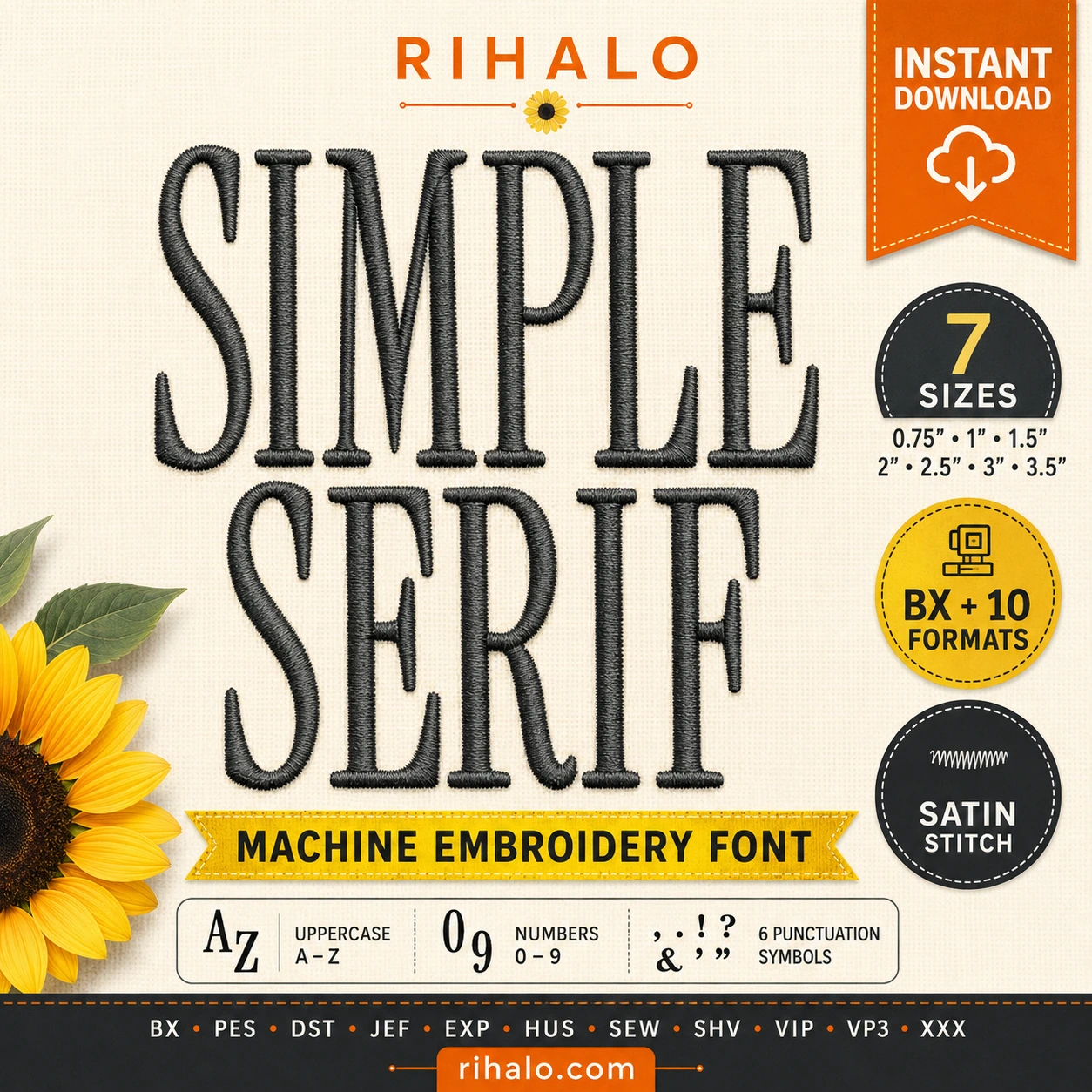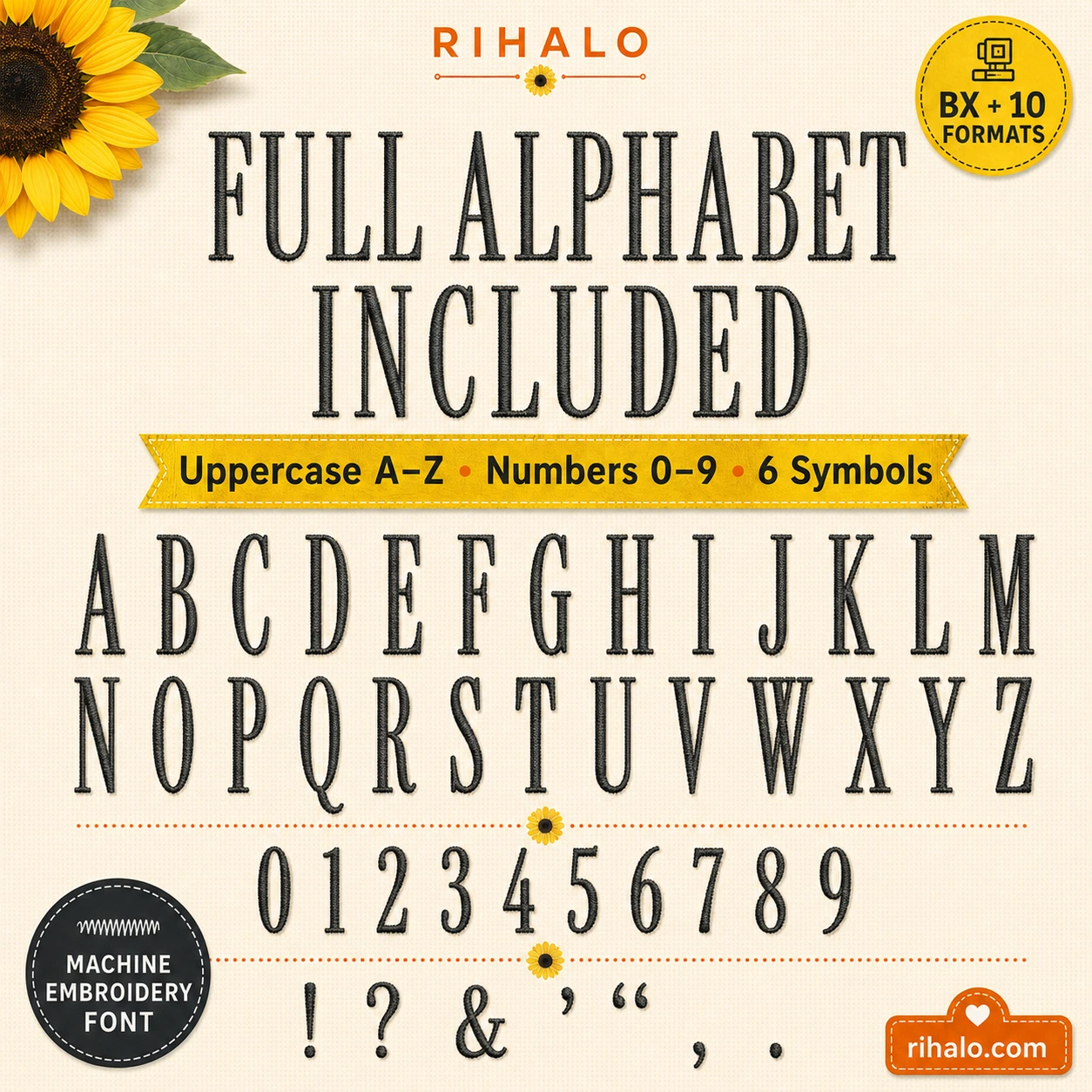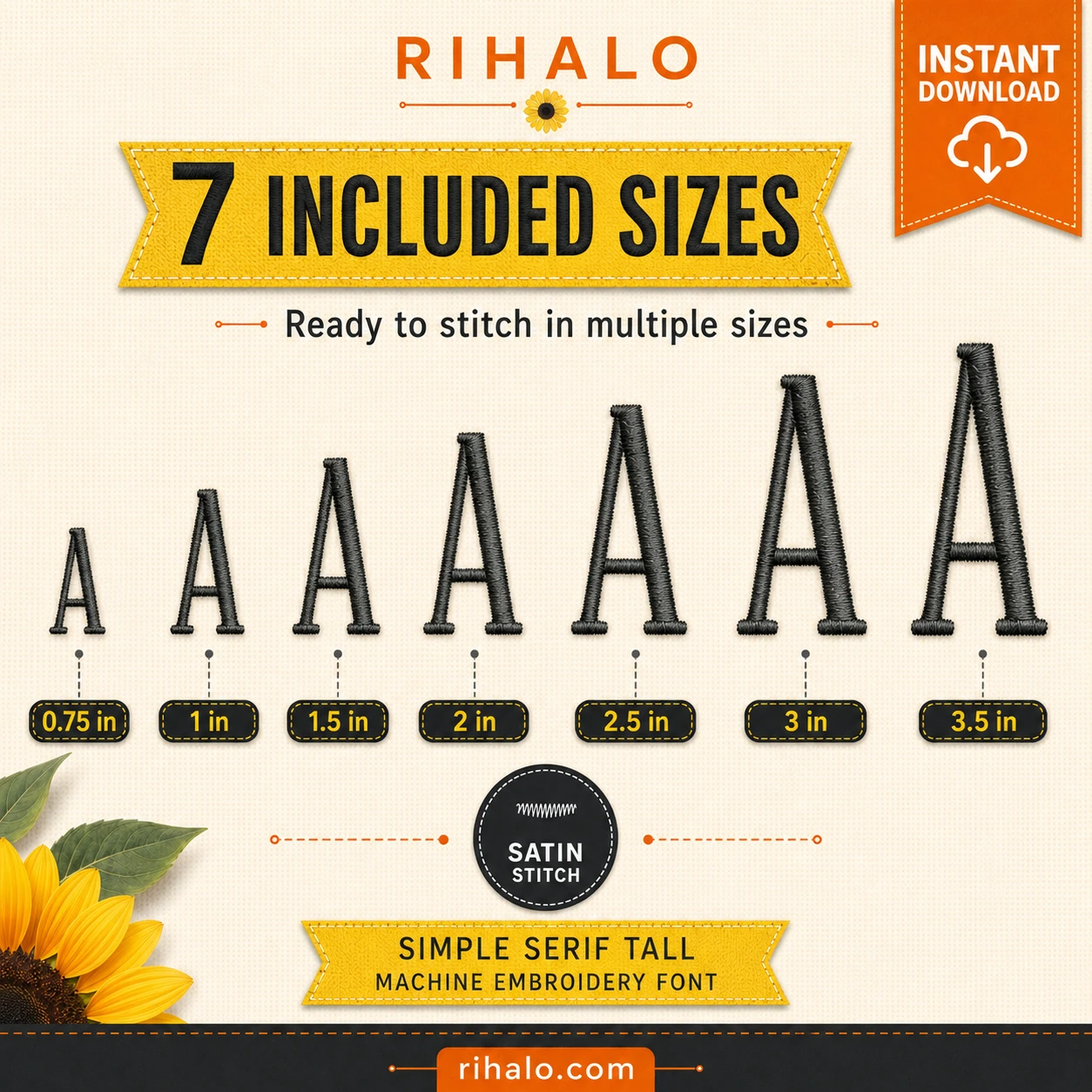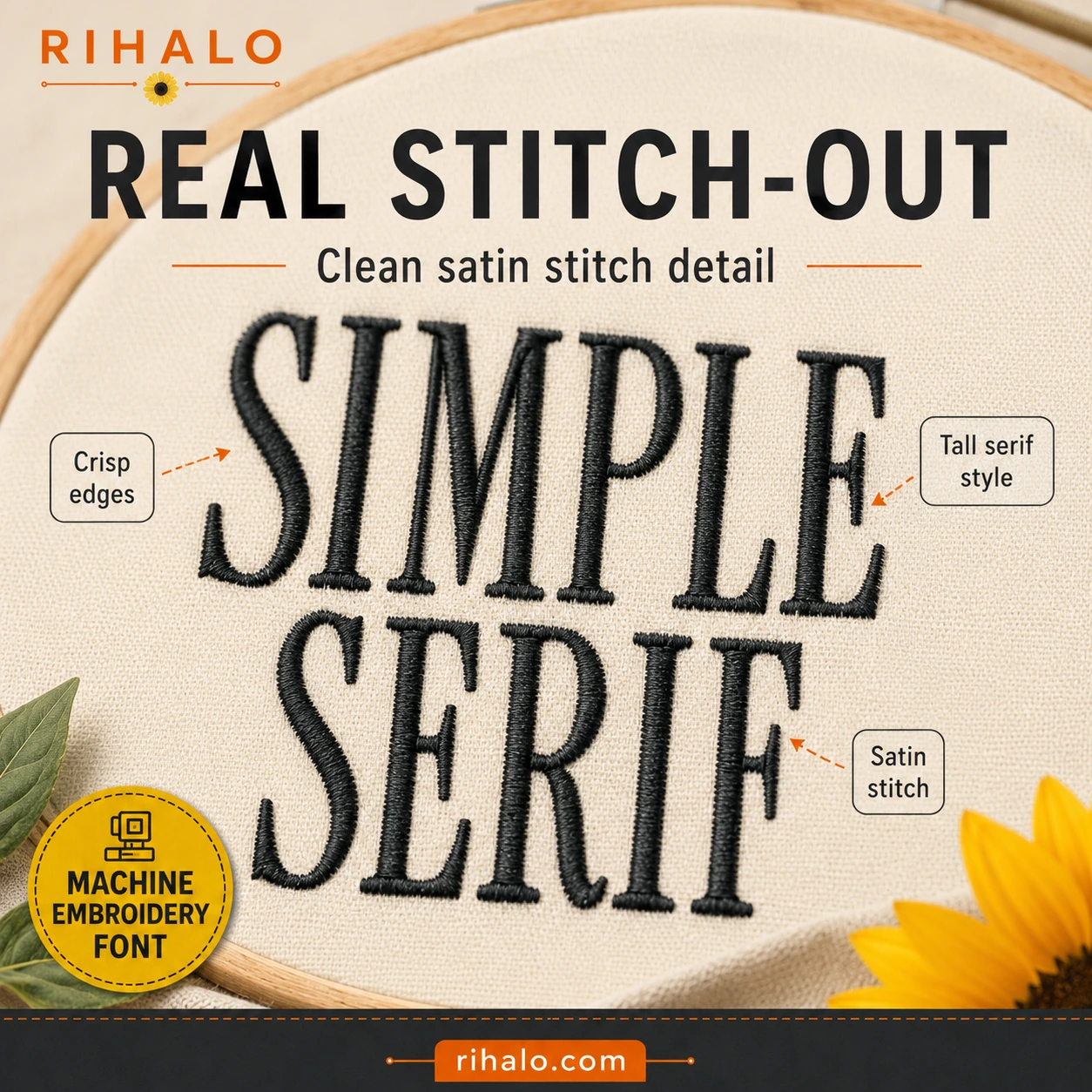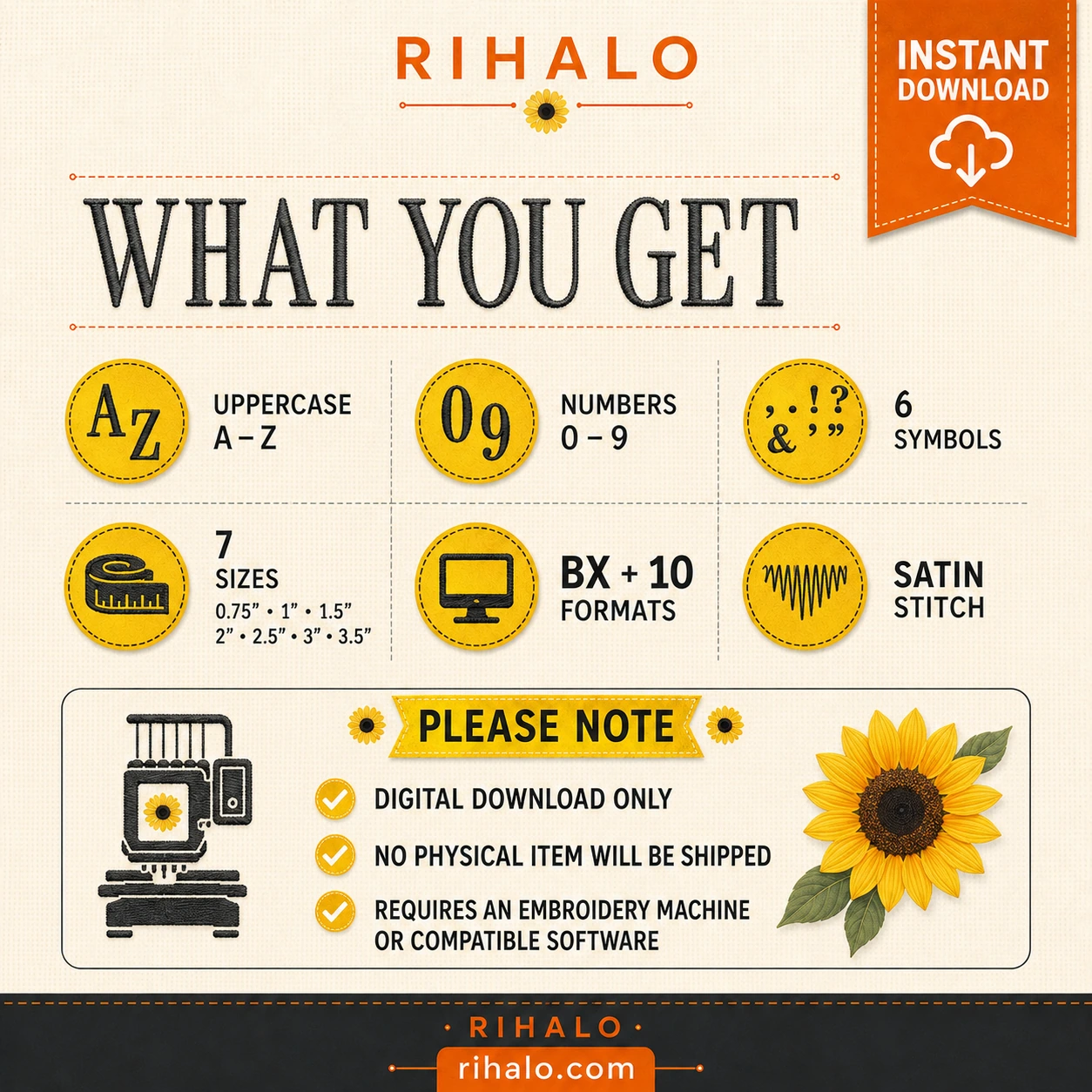
Classic Serif Lettering, Digitized for Machine Embroidery
Create clean, elegant monograms and personalized embroidery projects with the Simple Serif Tall Embroidery Font.
Its tall, refined serif shape works beautifully for names, initials, monograms, towels, bags, linens, apparel and many other embroidery projects.
Each character has been prepared in multiple sizes so you can choose the size that best fits your project without having to rely on resizing a single design.
- Uppercase letters A–Z
- Numbers 0–9
- 6 punctuation symbols
- 7 embroidery sizes
- Satin stitch construction
7 Included Sizes
0.75″ • 1″ • 1.5″ • 2″ • 2.5″ • 3″ • 3.5″
Choose the size that best suits your embroidery project.
Stitch Type
Satin Stitch
Designed to create a clean, polished embroidered appearance while preserving the distinctive tall serif style.
Full Alphabet Set
A–Z, 0–9 and punctuation.
Satin Stitch
Clean and classic embroidered finish.